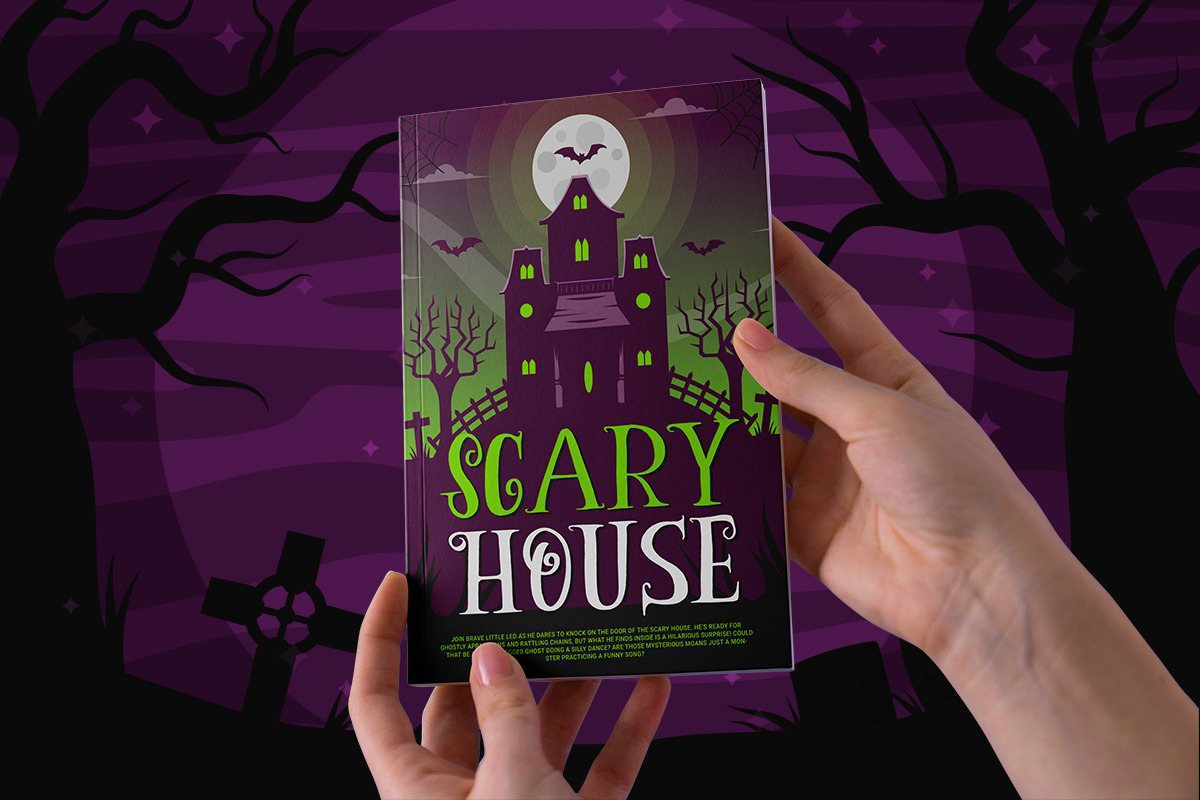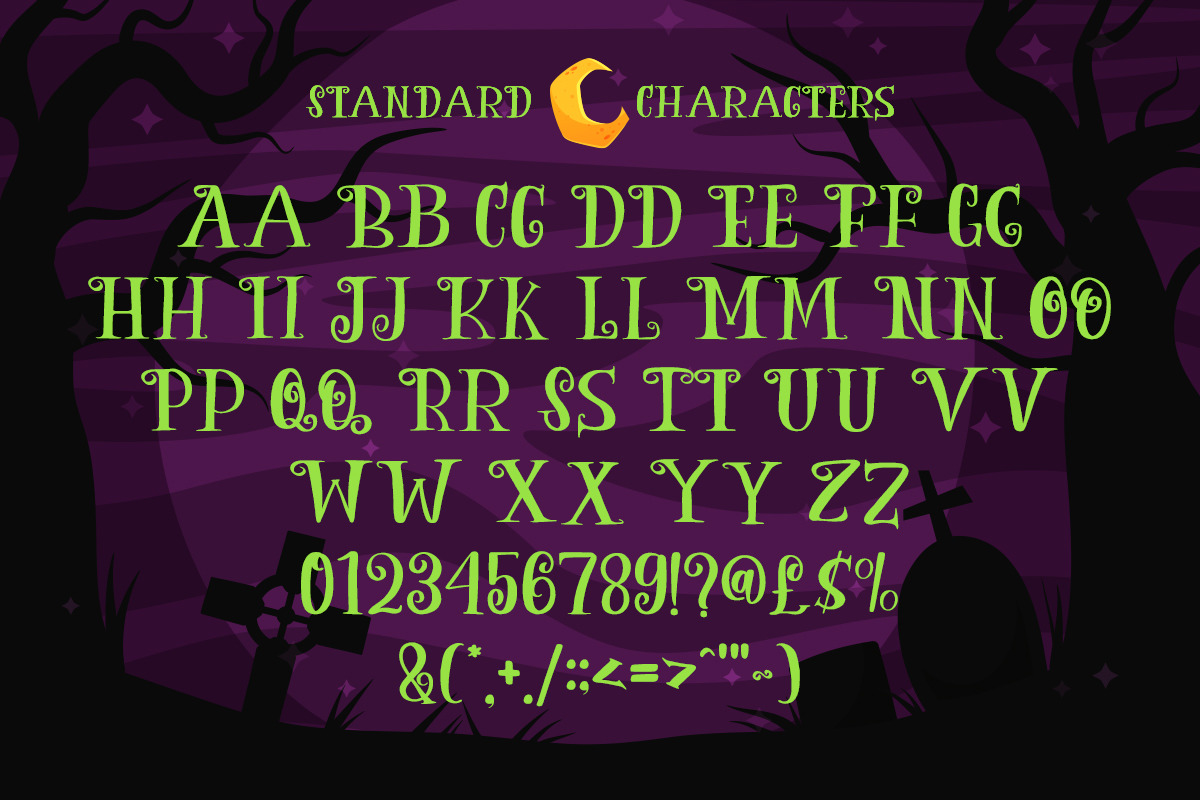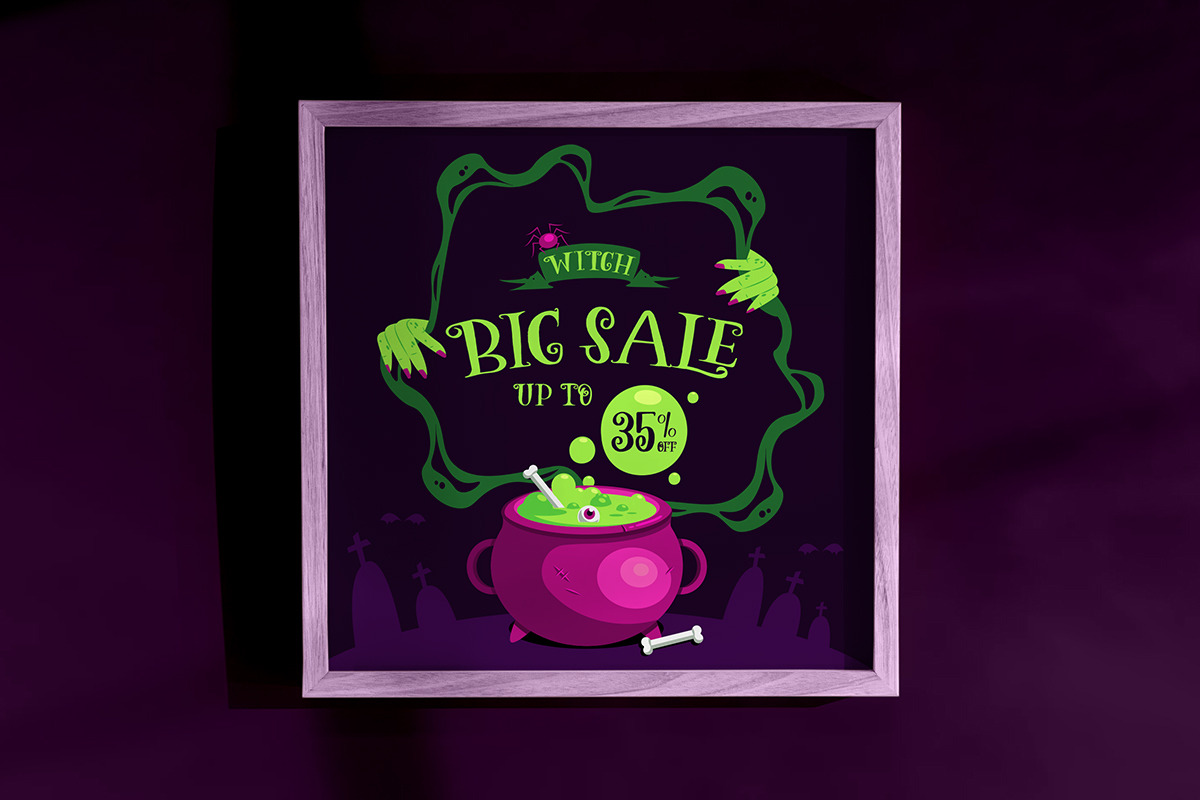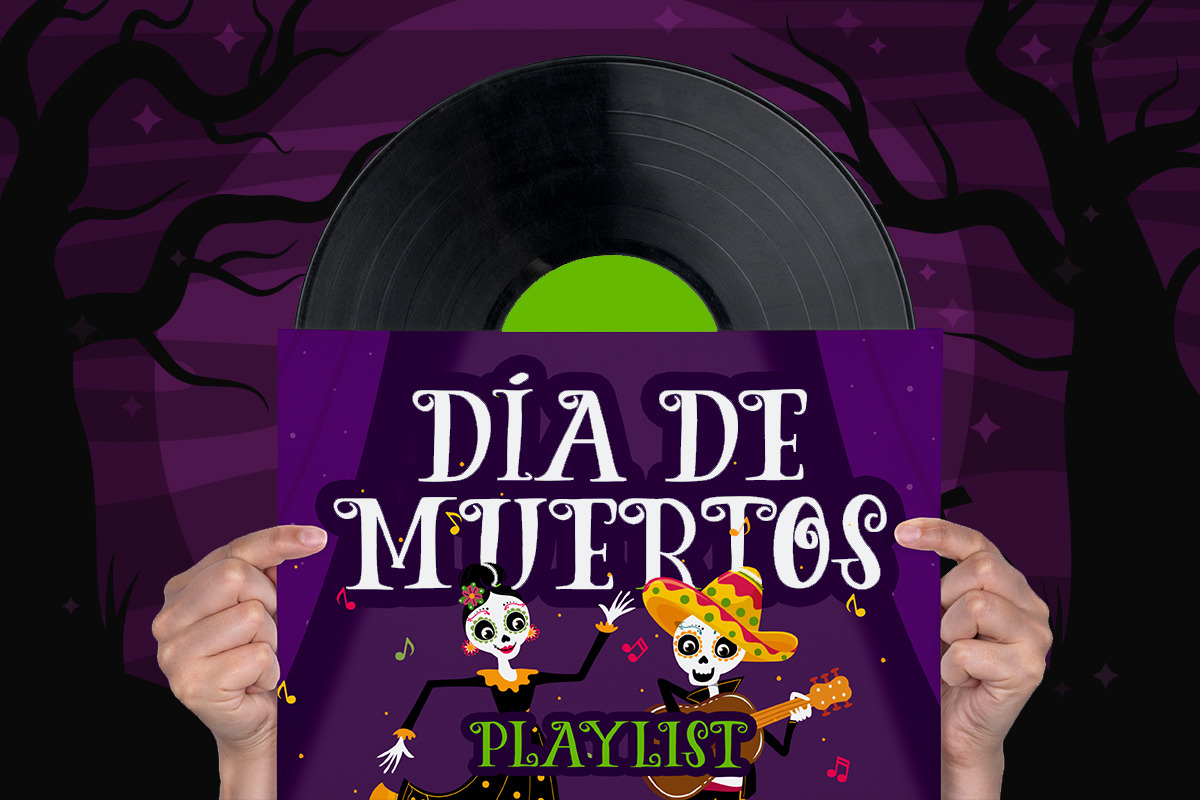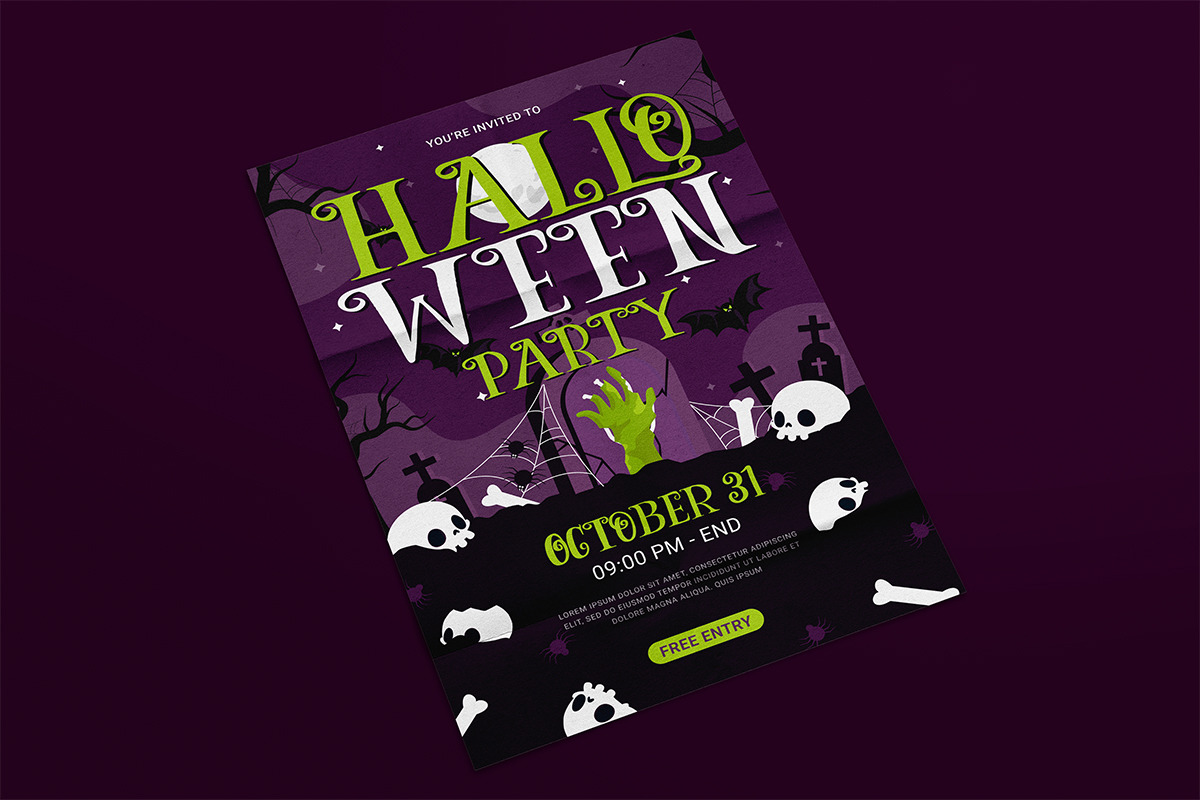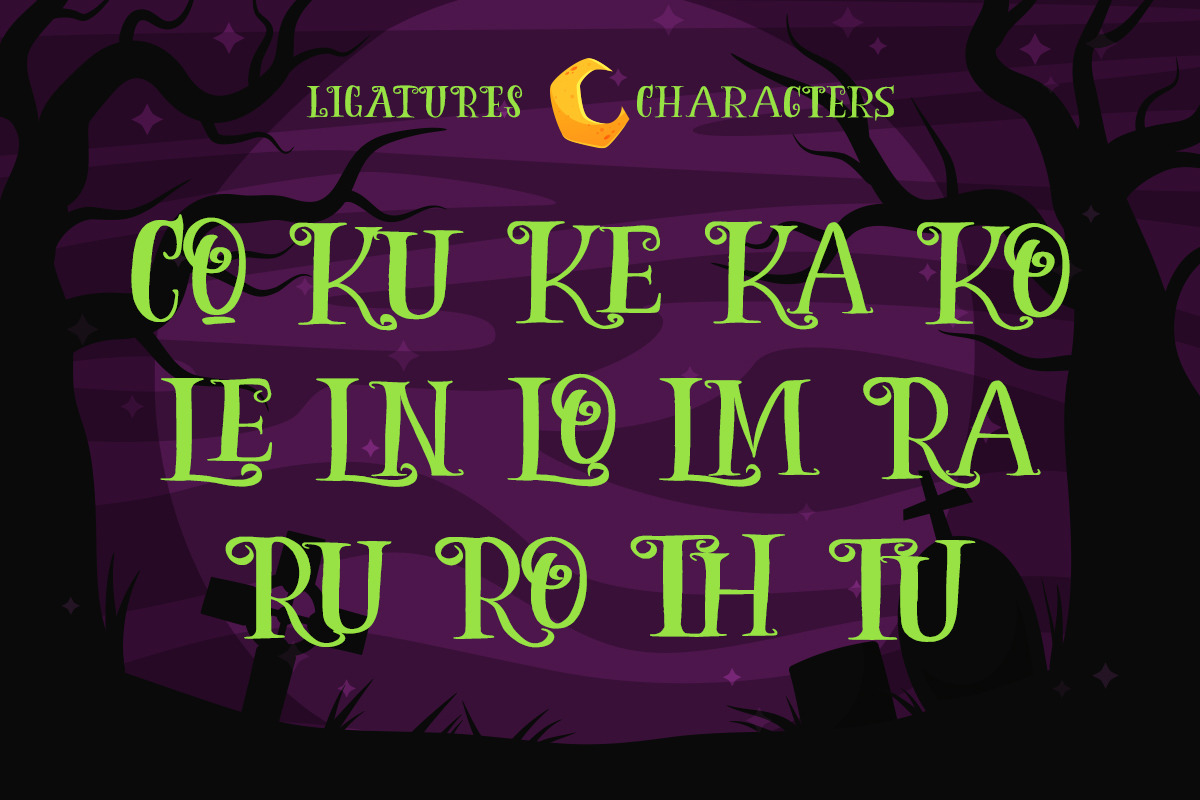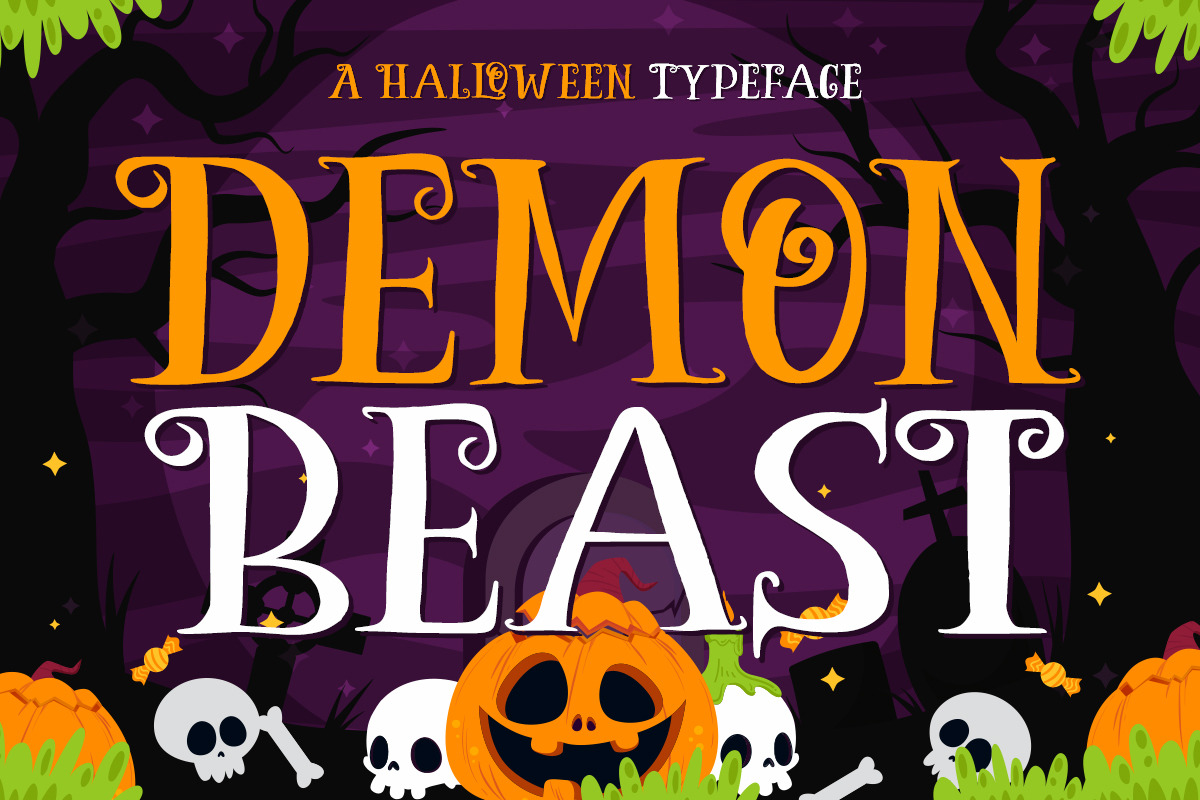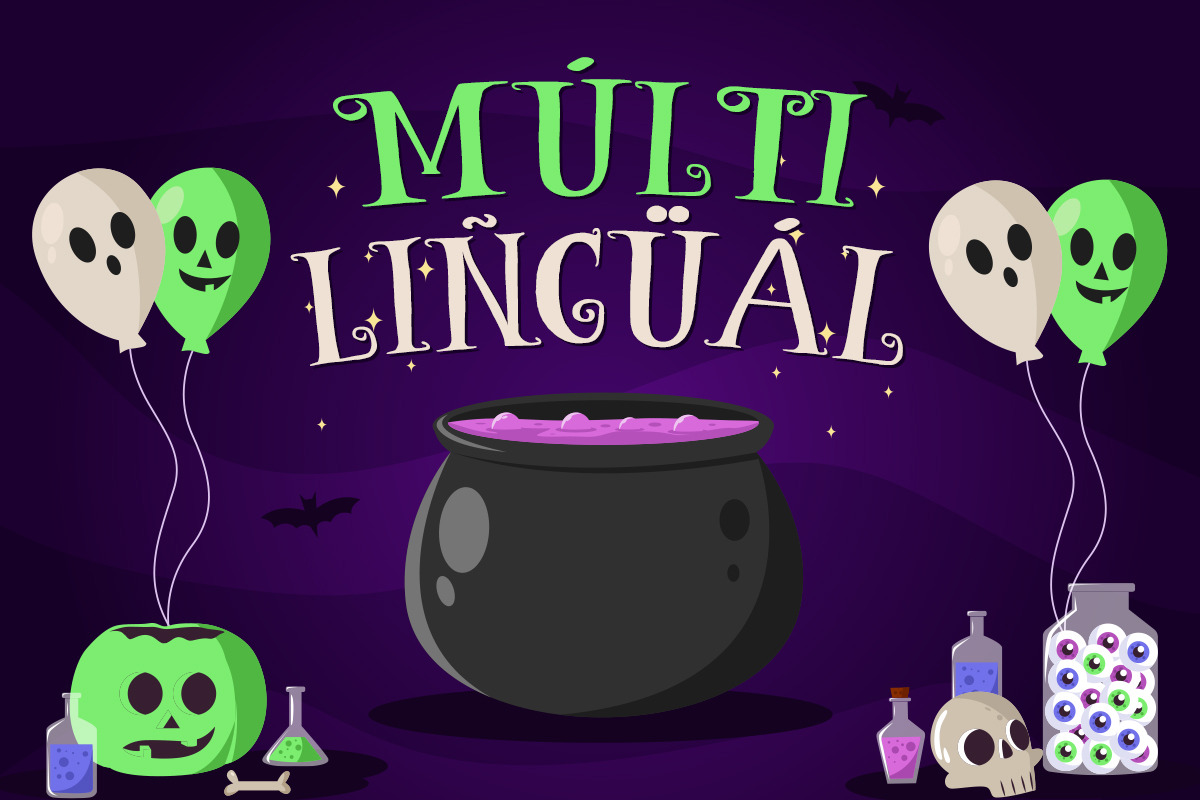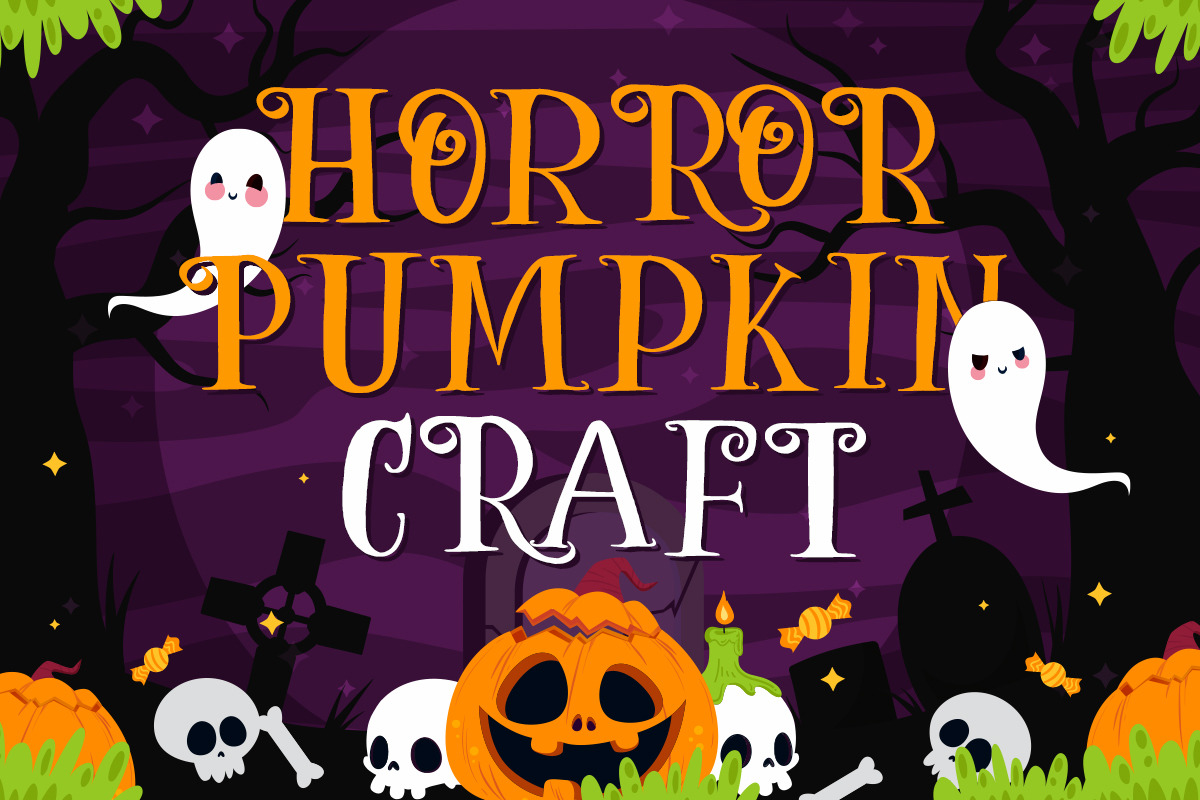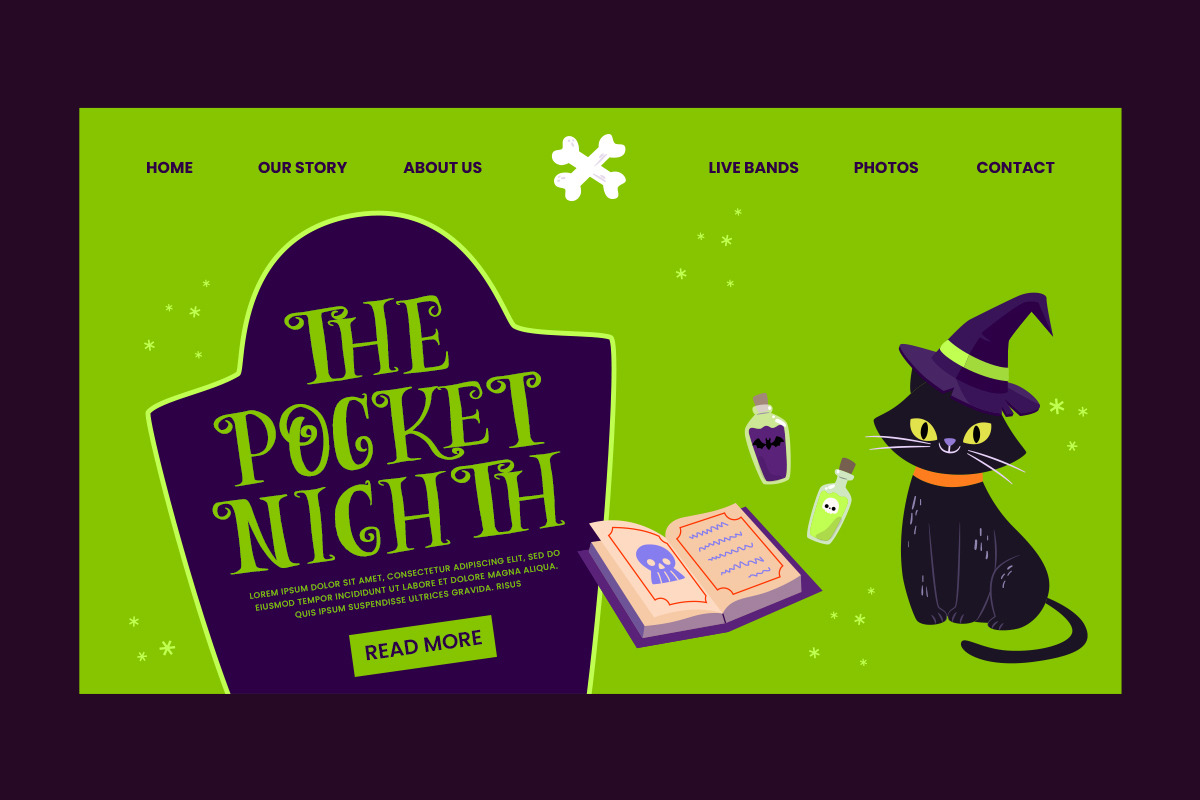
DEMON BEAST - Happy Halloween Font
Demon Beast – Happy Halloween Font is a chilling display typeface crafted to embody the eerie and playful essence of Halloween. With bold shapes and gothic-inspired details, it captures the spirit of frightful fun, making it an excellent choice for posters, apparel, party décor, and seasonal crafts. Its haunting style ensures that every design leaves a memorable impression.
The letterforms are designed with elongated strokes, twisted edges, and sinister embellishments that echo the themes of Halloween. Each character carries a sense of mystery and darkness, while maintaining a playful undertone that makes the font perfect for both spooky and festive designs.
Demon Beast thrives in creative projects such as embroidery, Cricut crafts, signage, and game titles, as well as holiday merchandise and decorations. Its versatility allows it to move seamlessly between print and digital applications, making it a must-have font for Halloween-inspired creativity.
The font’s design elements include cobweb-like textures, bat-inspired accents, and jagged descenders, adding depth and atmosphere to any project. Paired with traditional Halloween colors—deep black, blood red, or eerie green—it amplifies the haunting aesthetic and creates a striking visual impact.
- Standard & Multilingual glyphs.